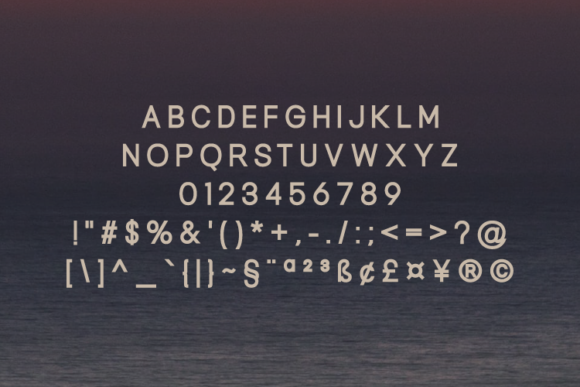
Introduction to Mezza Extra Bold Font
Mezza is a romantic, timeless, and minimalistic all caps sans serif font that looks stunning in any context.
With its minimalist appeal, itโs perfect for magazine layouts, invitations, headers, or even large-scale artworks .
Key Features of Mezza Extra Bold Font